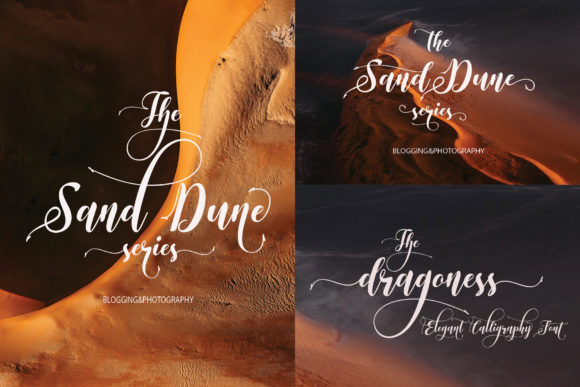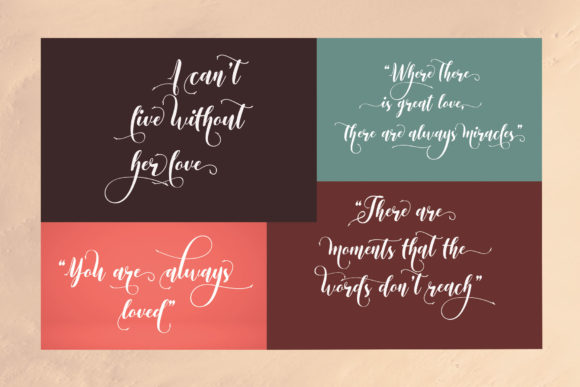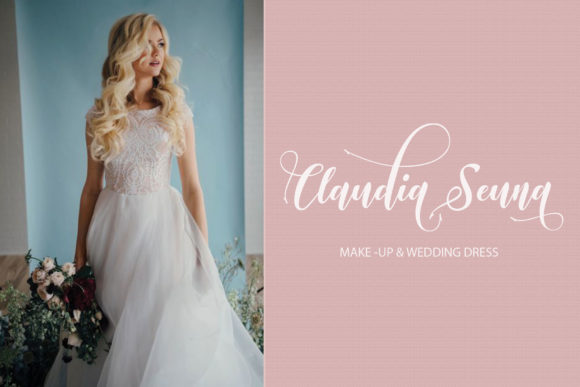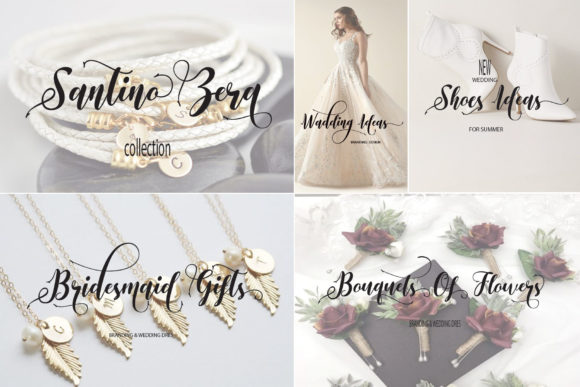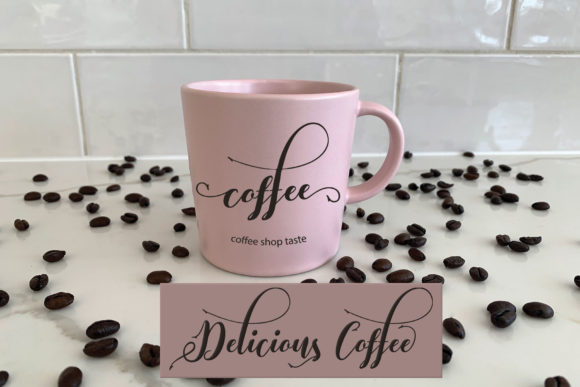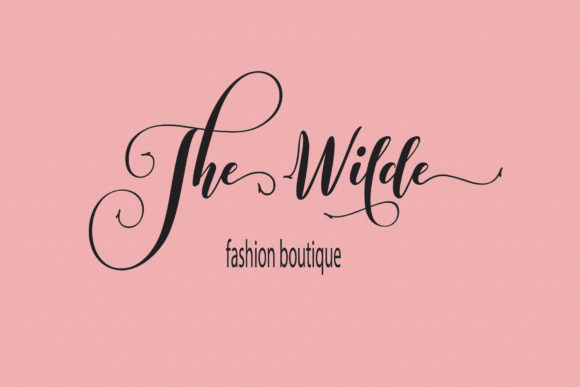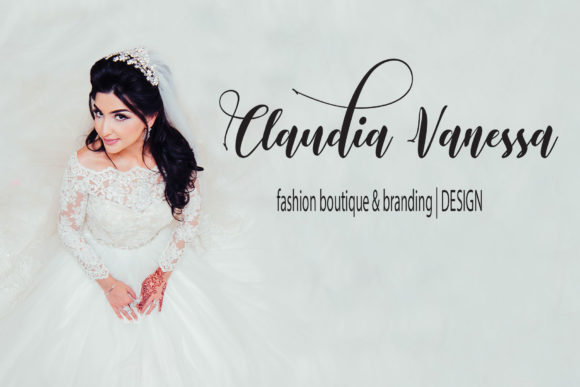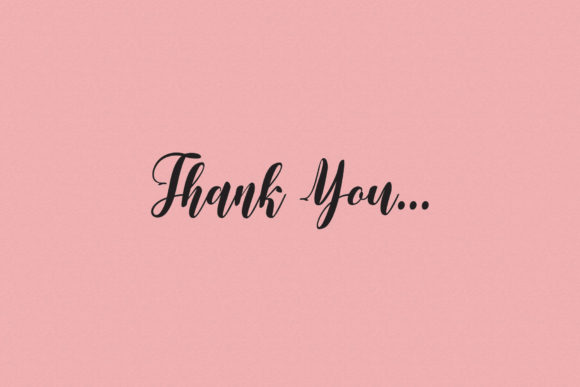
The Santinora Font
About The Santinora Font
The Santinora is an equally elegant and authentic script with a unique style. Get inspired by its modern aesthetic!